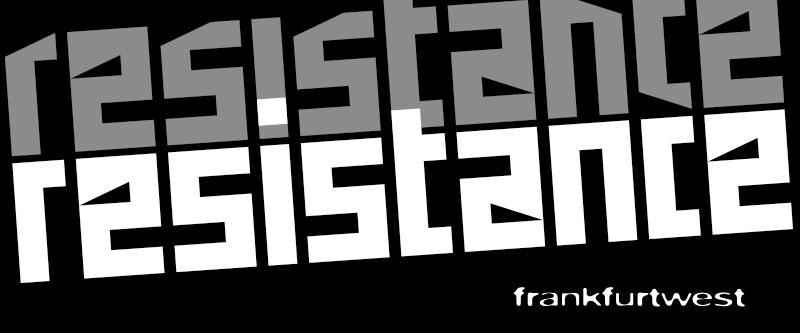
Resistance, created by renowned designer frankfurtwest, is a captivating display font that exudes a futuristic and edgy vibe. With its semi-bold weight and semi-condensed width, this techno-inspired typeface is perfect for projects that require a bold and modern aesthetic. Whether it's designing eye-catching logos, crafting attention-grabbing headlines, or creating striking posters, Resistance will make your content stand out from the crowd. Its unique style and versatile nature make it an excellent choice for anything from sci-fi movie titles to cutting-edge technology websites. Embrace the power of Resistance and unleash your creative potential today.